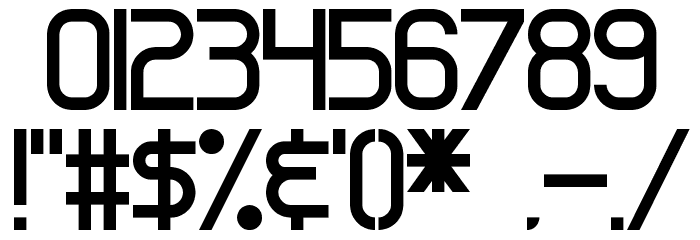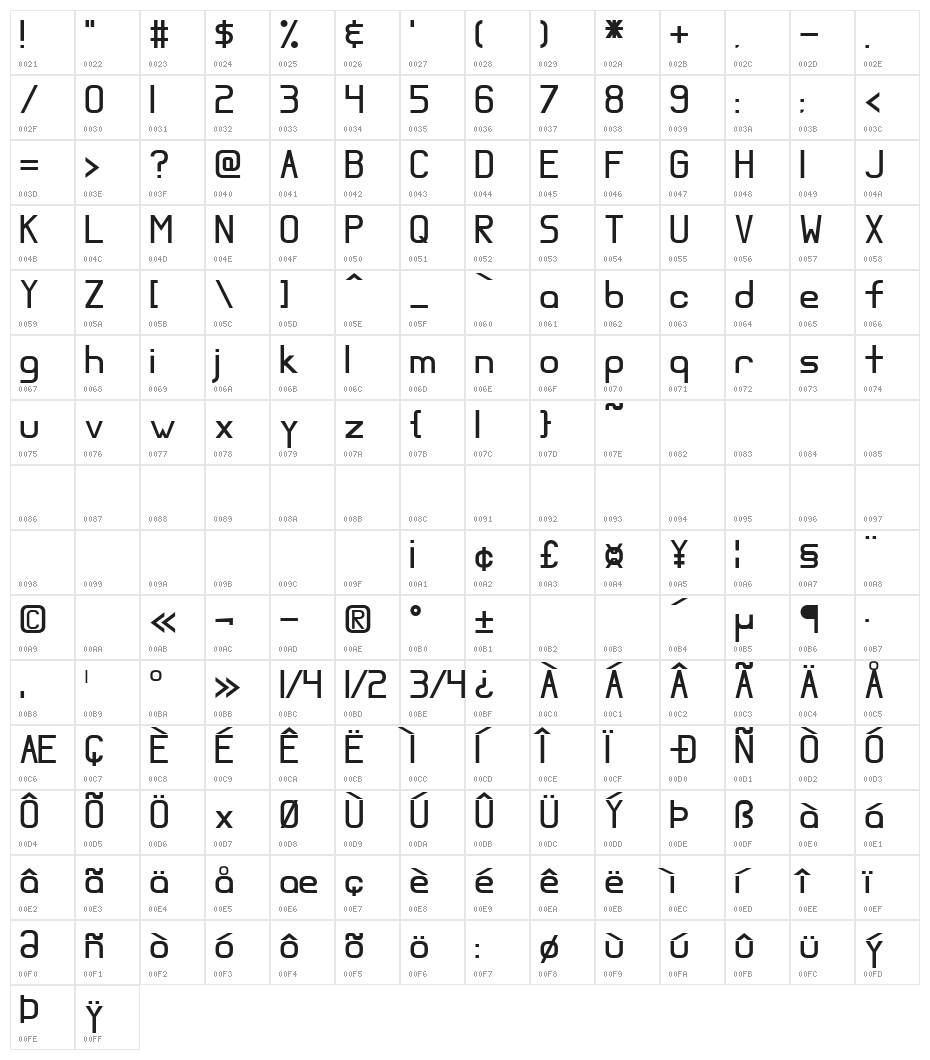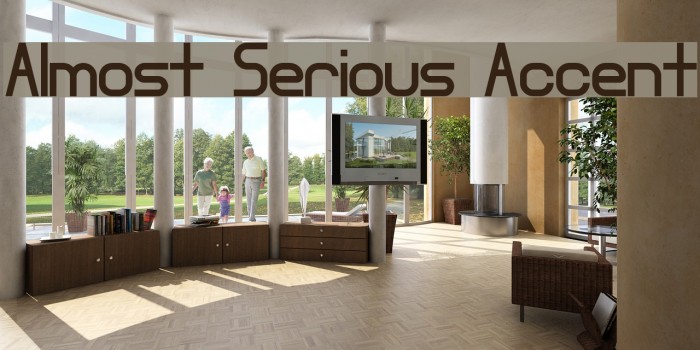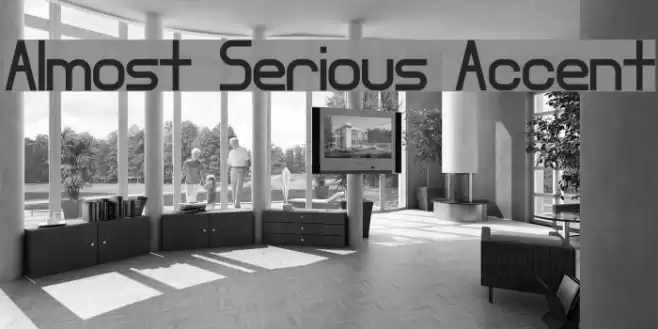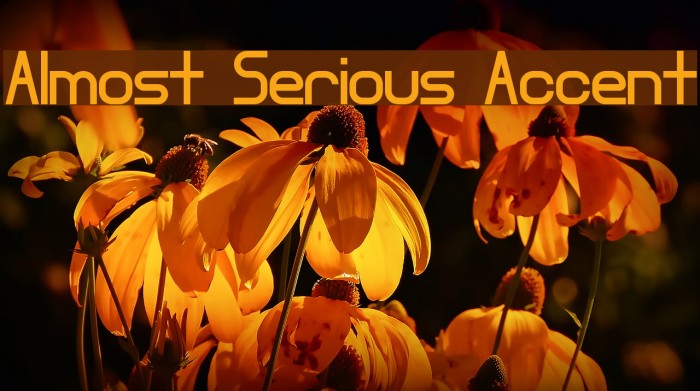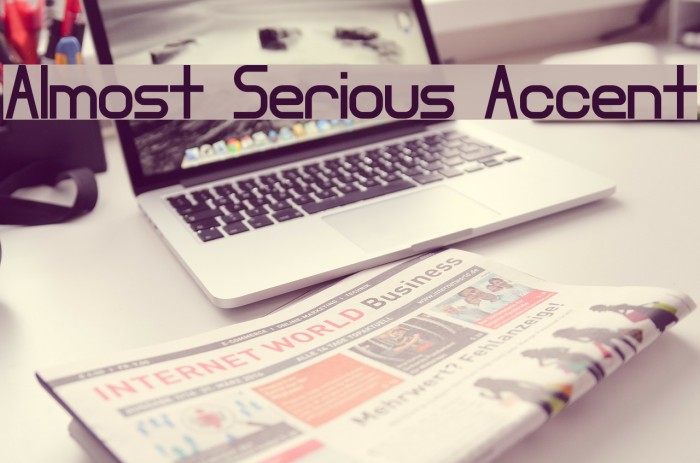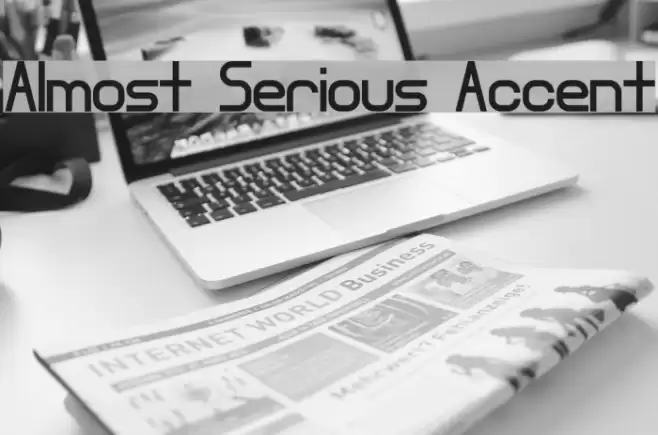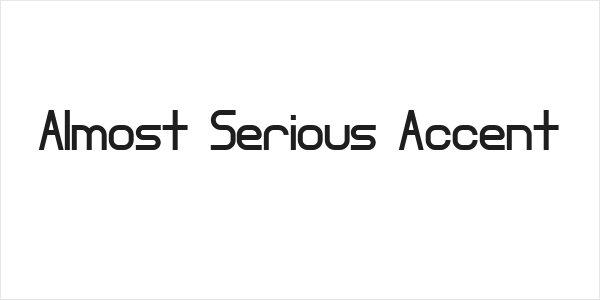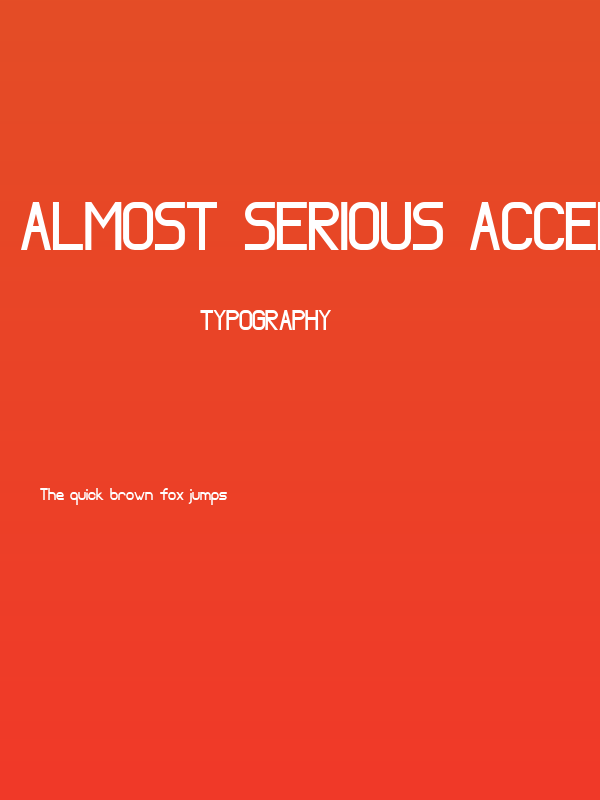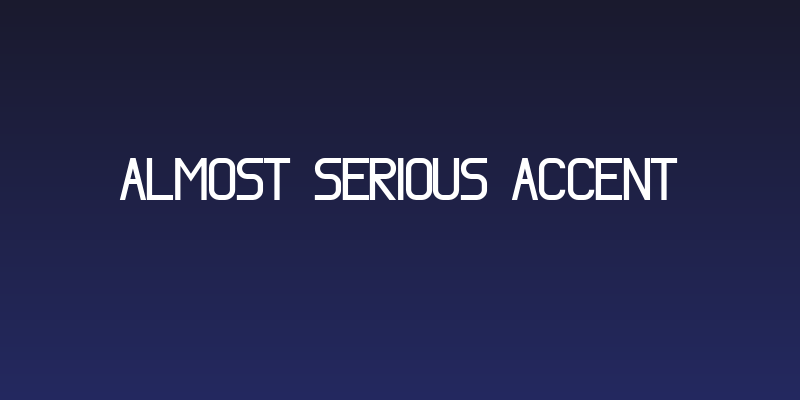
Almost Serious Accent Font
Almost Serious Accent Description
This font features a modern and geometric design with clean, straight lines and a uniform stroke width. The uppercase and lowercase letters maintain a consistent height, contributing to a balanced and harmonious appearance. The numerals are distinct and easy to read, while the special characters are well-integrated, enhancing the font's versatility. The overall structure is sleek and contemporary, making it suitable for a variety of design applications.
| Use Case | Headlines, Logos, Digital Interfaces |
| Proposed Projects | Ideal for branding, digital interfaces, signage, and editorial design. |